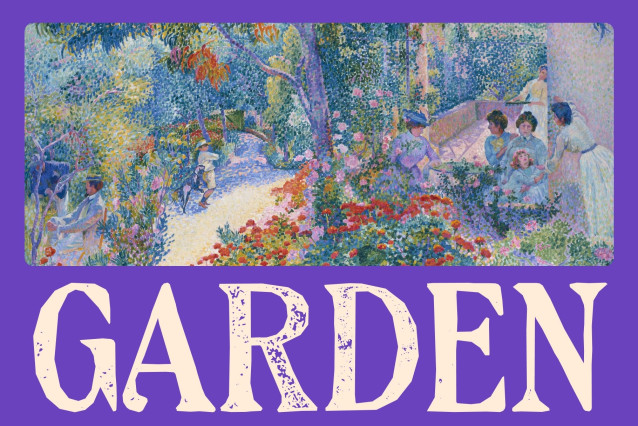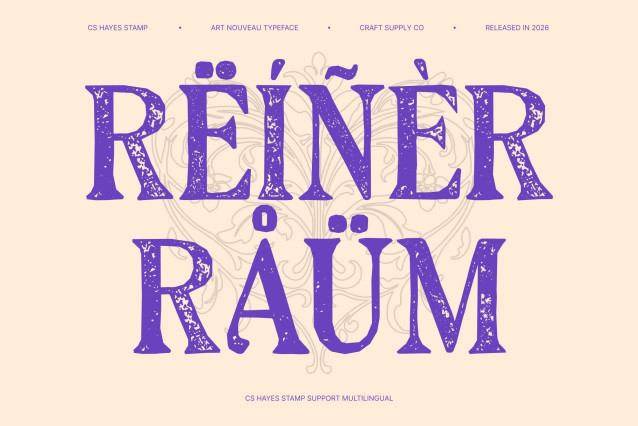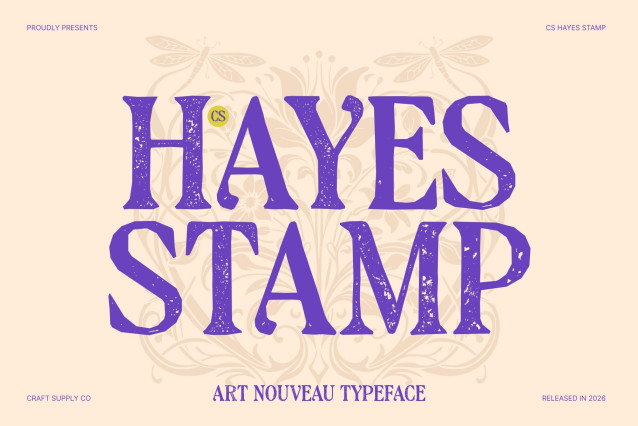
CS Hayes Stamp Font
CS Hayes Stamp – A Fusion of Modern Elegance and Art Nouveau Inspiration
Elegantly Artistic with a Stamped Character
This is a refined display serif font that blends modern typographic structure with the ornamental beauty of Art Nouveau. Enhanced with a subtle stamp texture, it introduces a handcrafted, print-inspired feel that enriches its elegant and artistic personality.
Fluid Curves with Intricate Detail
Defined by smooth, flowing curves and decorative detailing, this font carries a strong artistic presence. Its organic forms and ornamental touches reflect classic Art Nouveau influences, while the stamped finish adds depth, warmth, and a vintage tactile quality.
Balanced Proportions with Natural Ornamentation
Carefully crafted proportions ensure readability while preserving its expressive and decorative character. Nature-inspired elements woven into the letterforms create a graceful rhythm, giving the typeface a sense of harmony, elegance, and visual poetry.